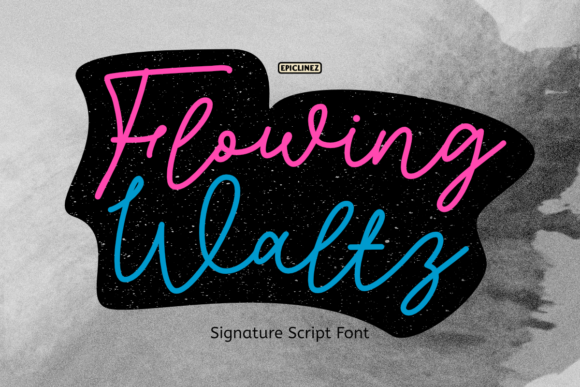
Unleash the Elegance: Flowing Waltz Font - A Dance of Letters
In a world where digital communication reigns supreme, your email signature holds the power to make a lasting impression. It's the perfect opportunity to showcase your individuality, professionalism, and creativity. And with the Flowing Waltz font, you can craft an email signature that dances with sophistication and style.
Introducing Flowing Waltz, a breathtaking script font designed to elevate your email signature to new heights. Its natural flowing style mimics the elegance of a waltz, creating a visual symphony that captivates the eyes. Each letter intertwines seamlessly, like a graceful dance across the digital canvas.
Elevate Your Professionalism:
In the realm of business communication, a polished email signature exudes confidence and competence. Flowing Waltz empowers you to project a professional image that commands attention. Its refined strokes and elegant curves add an air of sophistication to your emails, leaving a lasting impression on clients, colleagues, and potential collaborators.
Embrace Your Creativity:
Flowing Waltz is more than just a font; it's an invitation to unleash your creativity. Whether you're a budding entrepreneur, a creative professional, or simply someone who appreciates the finer things in life, this font will ignite your imagination. With Flowing Waltz, your email signature becomes a blank canvas where you can paint your unique style and personality.
Perfect for Branding and Sophisticated Designs:
Beyond email signatures, Flowing Waltz shines in branding and sophisticated designs. Its timeless beauty adds a touch of class to logos, business cards, wedding invitations, and any project that demands a touch of elegance. The natural flow of the letters creates a visual harmony that captivates and engages, leaving a lasting impression on your audience.
Experience the Flowing Waltz Difference:
- Extensive Language Support: Flowing Waltz embraces diversity, supporting a wide range of languages. Communicate with confidence, knowing that your email signature and designs will resonate with audiences worldwide.